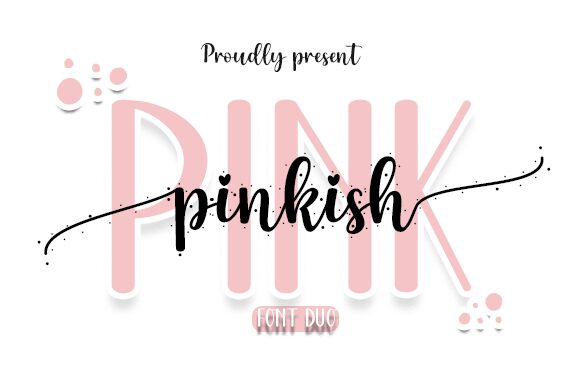
Pink Display, a delightful creation by font designer Danar Nugroho, is the perfect choice for projects that need a touch of whimsy and playfulness. With its cute cartoon style, this semi-light font brings a sense of joy and cheerfulness to any design.
Its condensed width allows for efficient use of space, making it ideal for eye-catching headlines or attention-grabbing titles. Whether you're designing children's books, party invitations, or vibrant posters, Pink Display is sure to captivate your audience with its irresistibly charming aesthetic.